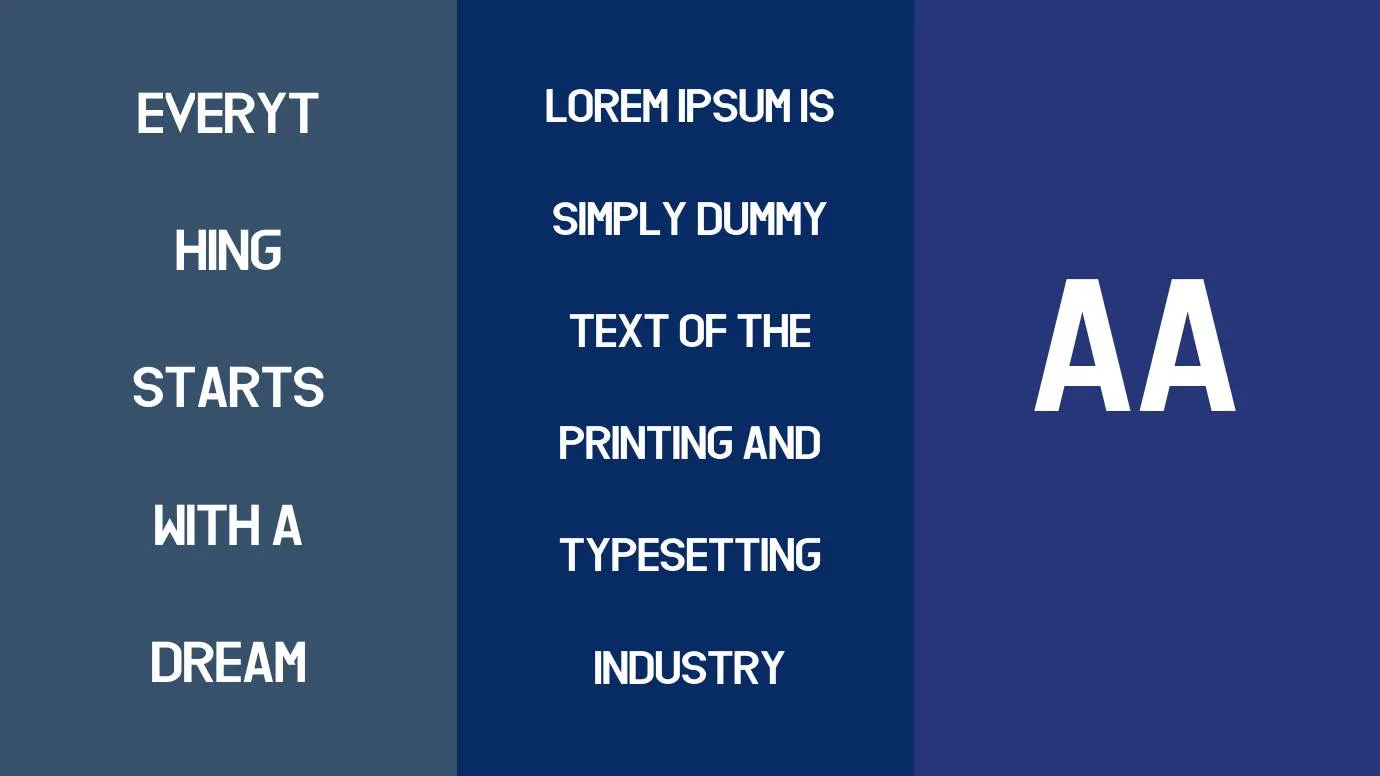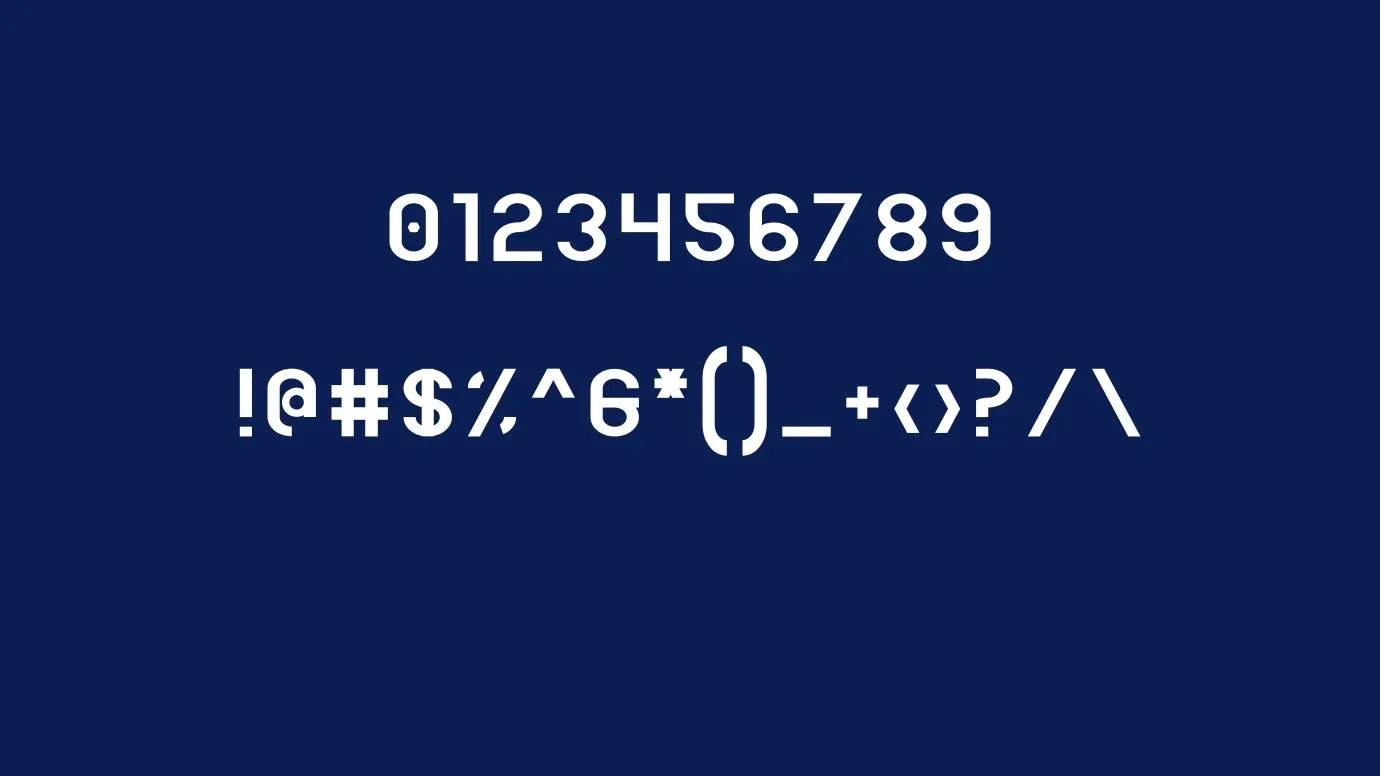
Begal Font is a nice and attractive style it was designed by Sambogo Creative. It is an elegant typeface. The style has a unique character set. It consists of more than 100 Glyphs.
It is the sans serif typeface. The typeface is beautifully created and it has an attractive look. It shows flexibility in its letters and it has a strong design as well.
Create a unique design that is special and attention-grabbing. You can pair this typeface with sonic font. This fabulous font is used by many graphic designers for creating their projects.
Usage of Begal Font in Brands
This typeface is compatible with Adobe Photoshop and Canva. You can use this style to create movie logos. This style has the ability to design invitation cards, websites, and simple text that needs elegant design.
Your project can have an imaginative look by using the typeface. You can create commercials and social media posts with this typeface. This typeface can be used to design several projects such as wall paintings and gaming designs.
The lovely design is perfect for creating shirts and mug designs. This style has a wide range of creative uses including blog writing, card designs, and catalog design as well.
Where can I use the Begal Font?
The style can be used for creating book covers, invitation cards, and artwork as well. The style is beautifully created and it has a unique appearance.
What type of Begal Font is?
It is a contemporary sans-serif font. It has a unique text design. This typeface highlights the many cords and digits.